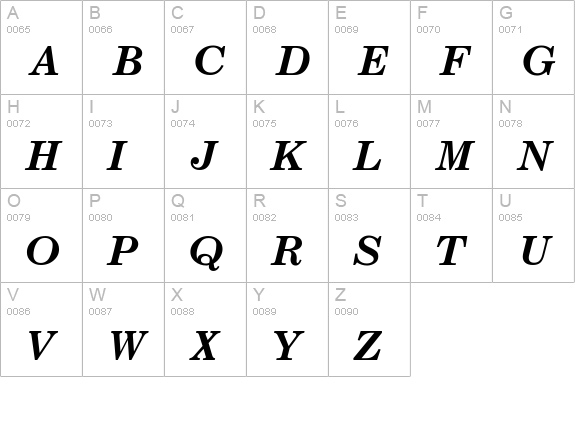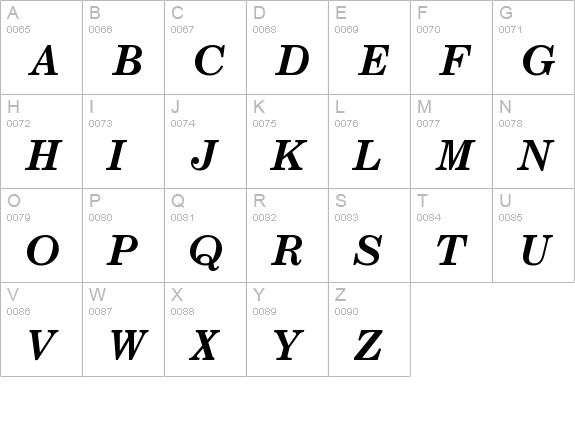
Century-Schoolbook-Bold-Italic is a strong, high-contrast, italic variant in the Century typeface family \xE2\x80\x94 well suited to headlines, attention-grabbing titles, and strong calls-to-action.
Century-Schoolbook-Bold-Italic is a classic and elegant font that exudes sophistication and style. Its bold and italic design adds a touch of flair to any project, making it perfect for headings, titles, and emphasis in various design applications. The unique characteristics of this font make it stand out from the crowd, giving your work a professional and polished look. And the best part? Century-Schoolbook-Bold-Italic is available for free download at FontsMarket.com. Now you can easily access this high-quality font without breaking the bank. Whether you're working on a personal project or a professional design, Century-Schoolbook-Bold-Italic is sure to elevate your work to the next level. Don't miss out on this opportunity to enhance your designs with this stunning font - download it for free today!